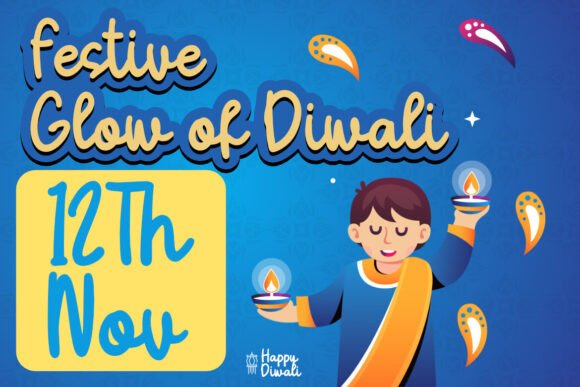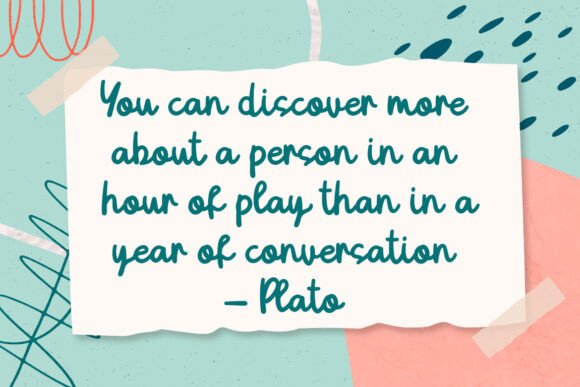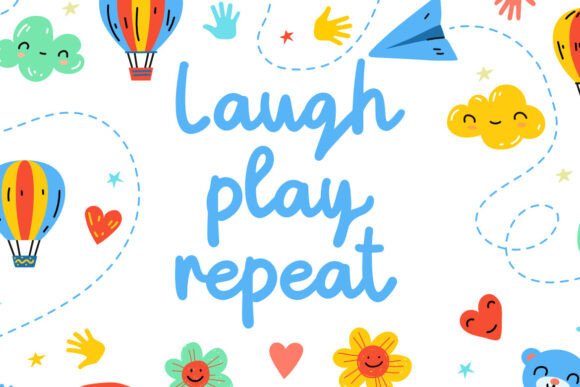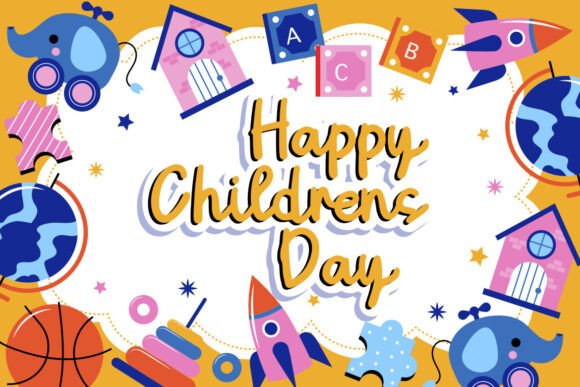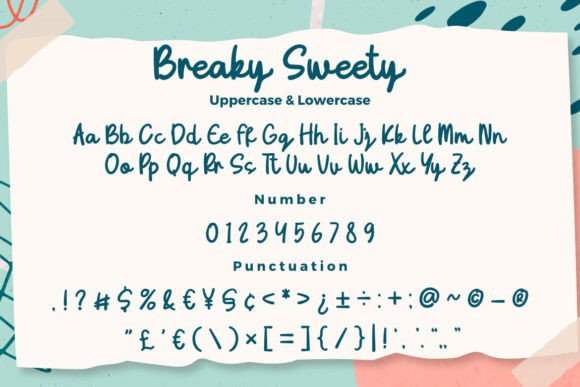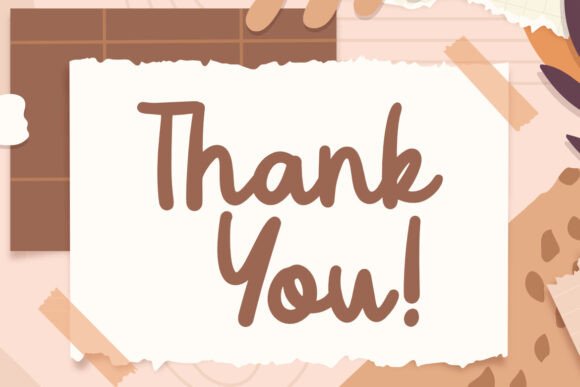
Get Ready to Fall in Love with the Perfect Script Font
Have you ever found yourself strolling through a quaint little café, sipping on a latte, and feeling inspired by the whimsical handwritten sign above the counter? That’s exactly the kind of creative spark that led us to discover the Breaky Sweety Font – a playful script font that’s sure to capture your heart.
Breaky Sweety Font is a high-quality, premium script font designed to elevate your visual content game. Whether you’re creating flyers, quotes, posters, banners, packaging, merchandise, or logotypes, this font is the perfect companion to help you convey your message in a unique and charming way. For designers, Breaky Sweety Font offers a valuable opportunity to add a touch of personality to their work, making it stand out from the crowd and leaving a lasting impression on their audience.
Breaky Sweety Font Key Features
- Unique Characteristics: Hand-drawn, cursive, and playful style with swashes and flourishes
Breaky Sweety Font Review
Overall, I think the Breaky Sweety Font is a sweet addition to any design project. ✨ Here are a few things I like about it:
- Unique and playful design: The Breaky Sweety Font has a distinct personality that’s perfect for creating eye-catching designs.
- Good legibility: Despite its whimsical nature, the font is still easy to read and understand.
- High-quality typography: The font has a smooth and well-crafted feel to it, making it a great choice for designers who want to add a touch of elegance to their work.
- Limited font styles: The Breaky Sweety Font only comes in a few different styles, which might limit its versatility in certain projects.
- Not suitable for formal designs: The playful nature of the font might make it difficult to use in formal or professional designs.
- Requires careful use: The font’s unique design elements can be overwhelming if not used thoughtfully, so designers will need to be mindful of how they incorporate it into their work.
Overall, I think the Breaky Sweety Font is a great choice for designers who want to add a touch of whimsy to their work. With a little creativity and caution, it can be a powerful tool in any design project.
Getting the Most Out of Breaky Sweety Font
Experiment with different font sizes and colors to achieve the desired effect. Pair the Breaky Sweety Font with other playful fonts for a unique look. Use it for headings, titles, and emphasis to add visual interest to your design.
Breaky Sweety Font is perfect for creative projects, such as children’s book illustrations, party invitations, and social media graphics. It’s also great for branding and logos that require a playful and whimsical touch.
Q: What is the recommended font size for the Breaky Sweety Font?
The recommended font size for the Breaky Sweety Font is between 12pt and 24pt, depending on the context and desired level of readability. For body text, we recommend using 14pt or 16pt. For headings and titles, you can use larger font sizes, such as 24pt or 36pt.